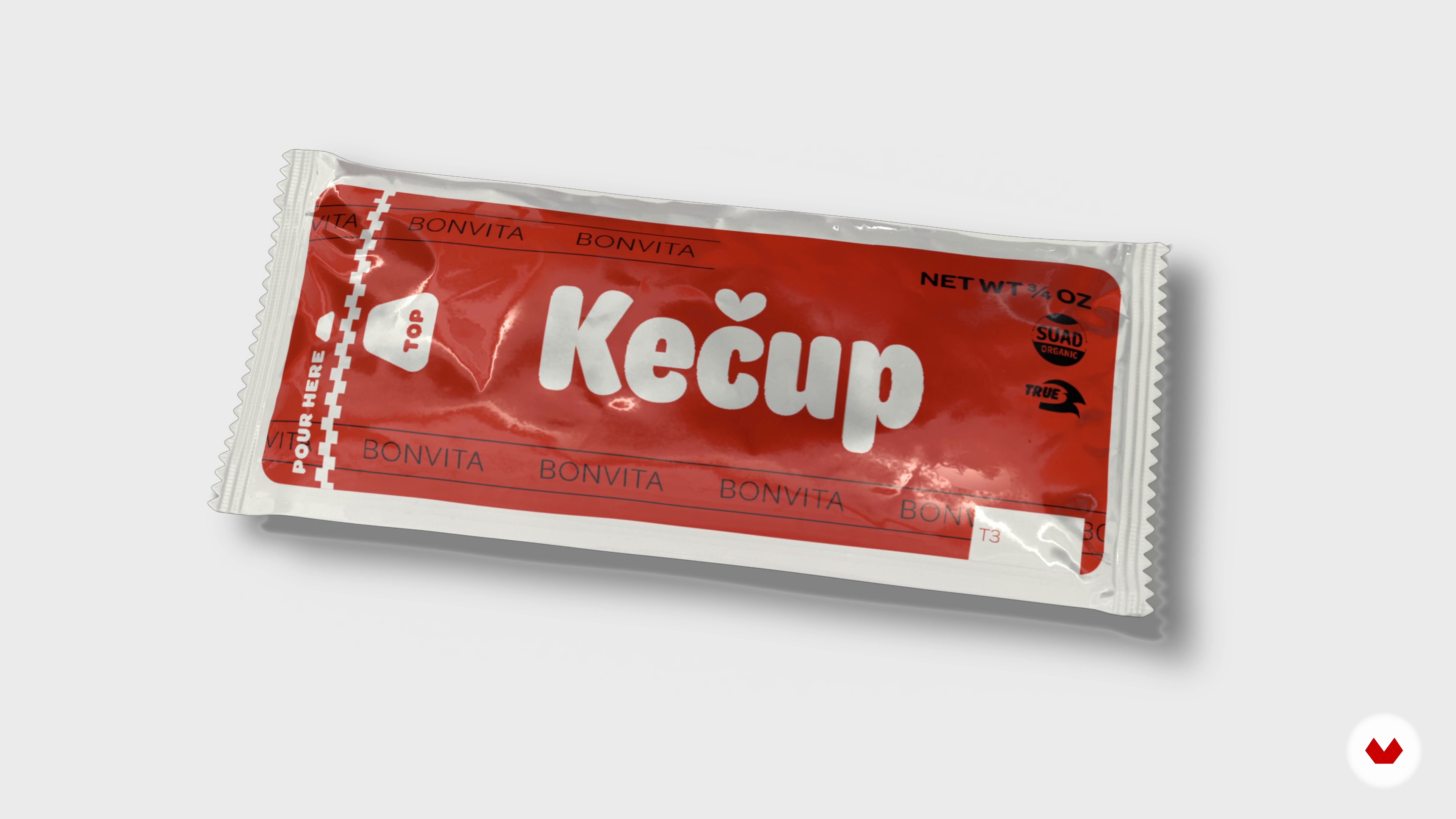
“I am excited to share the influences that have shaped my professional life. Amongst them are some very significant people who I hope will inspire you as much as they have inspired me.”
“Influences I'm excited to share the influences that have shaped my professional life. I hope that after exploring these people I found influential in my life that you’ll be inspired by them as well. First, Joshua Darden, who's my master I learned type design from. I found that the mantra of my work was guided and inspired by what Josh offered in my training with him. One of my favorite works from Josh was his typeface Freight. It's an incredibly wide superfamily of different weights, text sizes, and optical sizes that massively approached how to think about changes in the design based on th...”